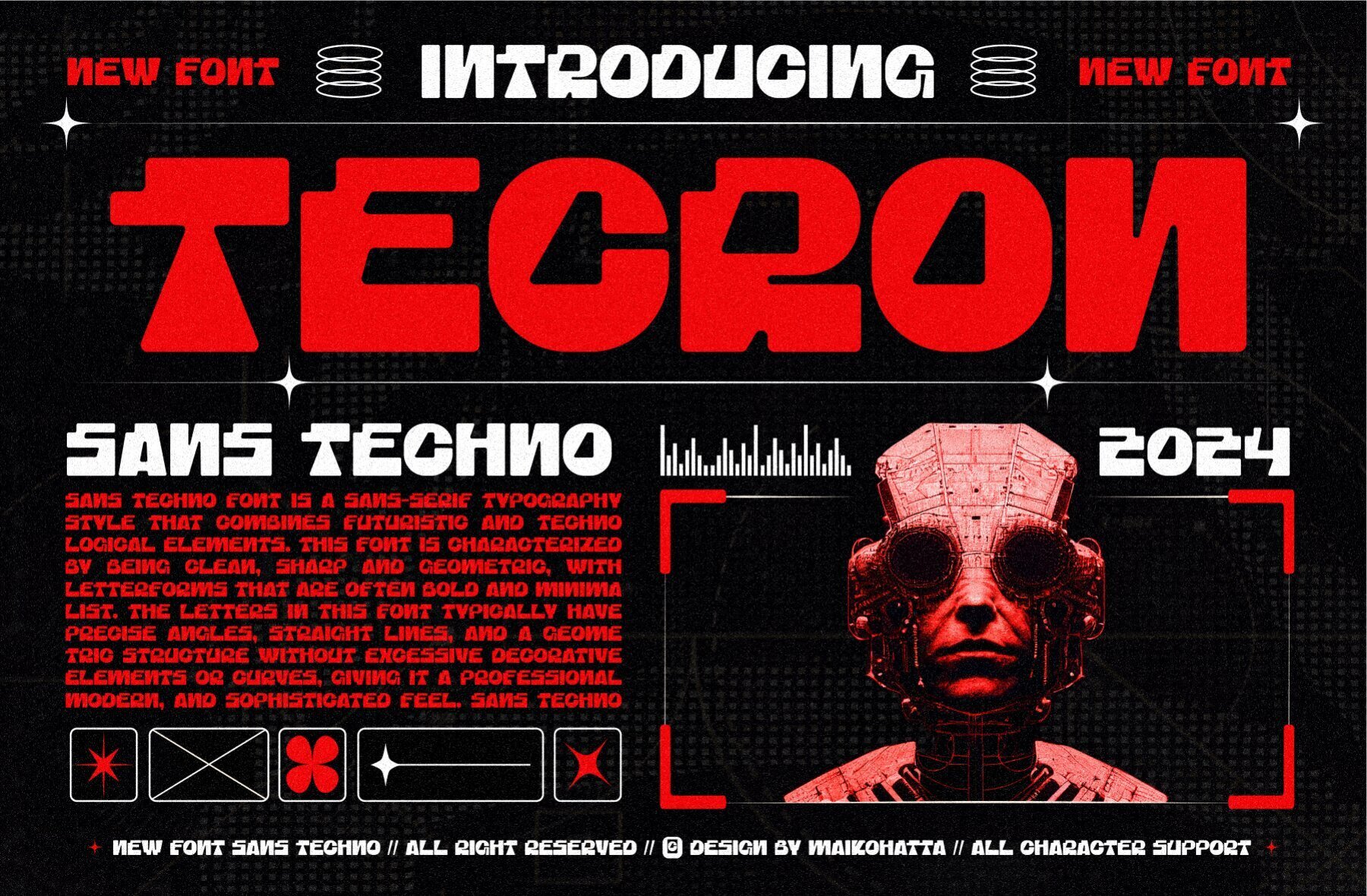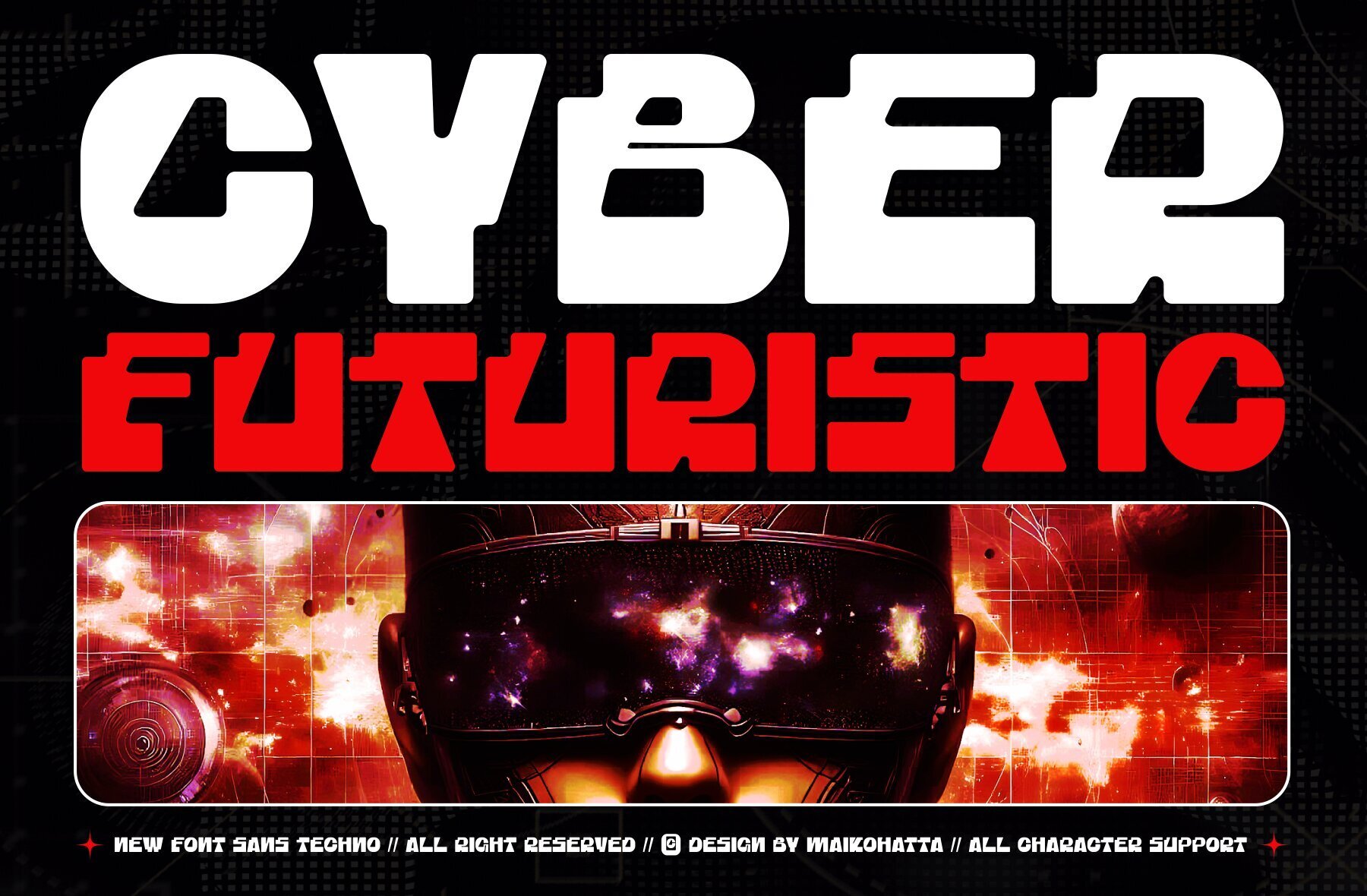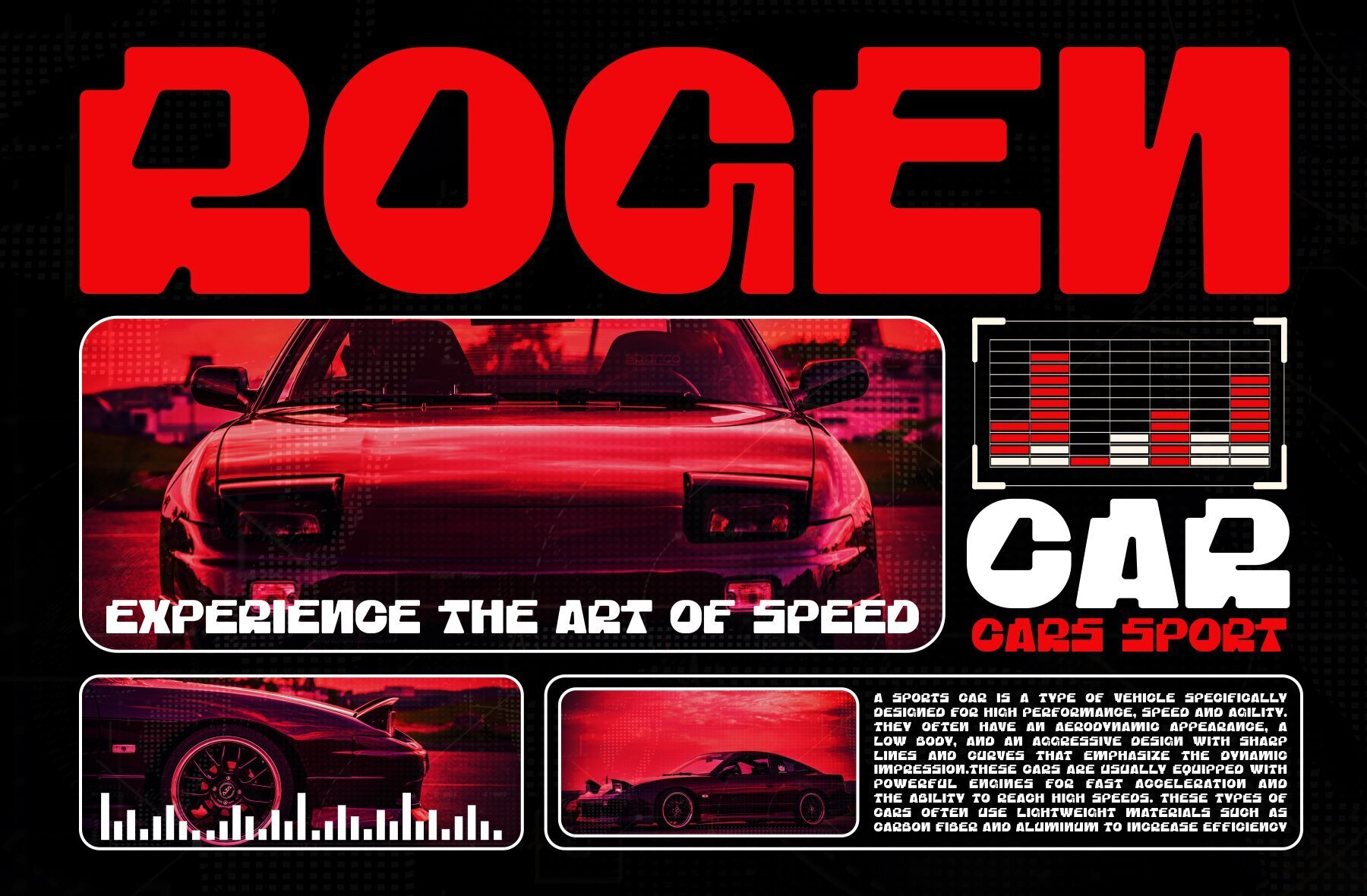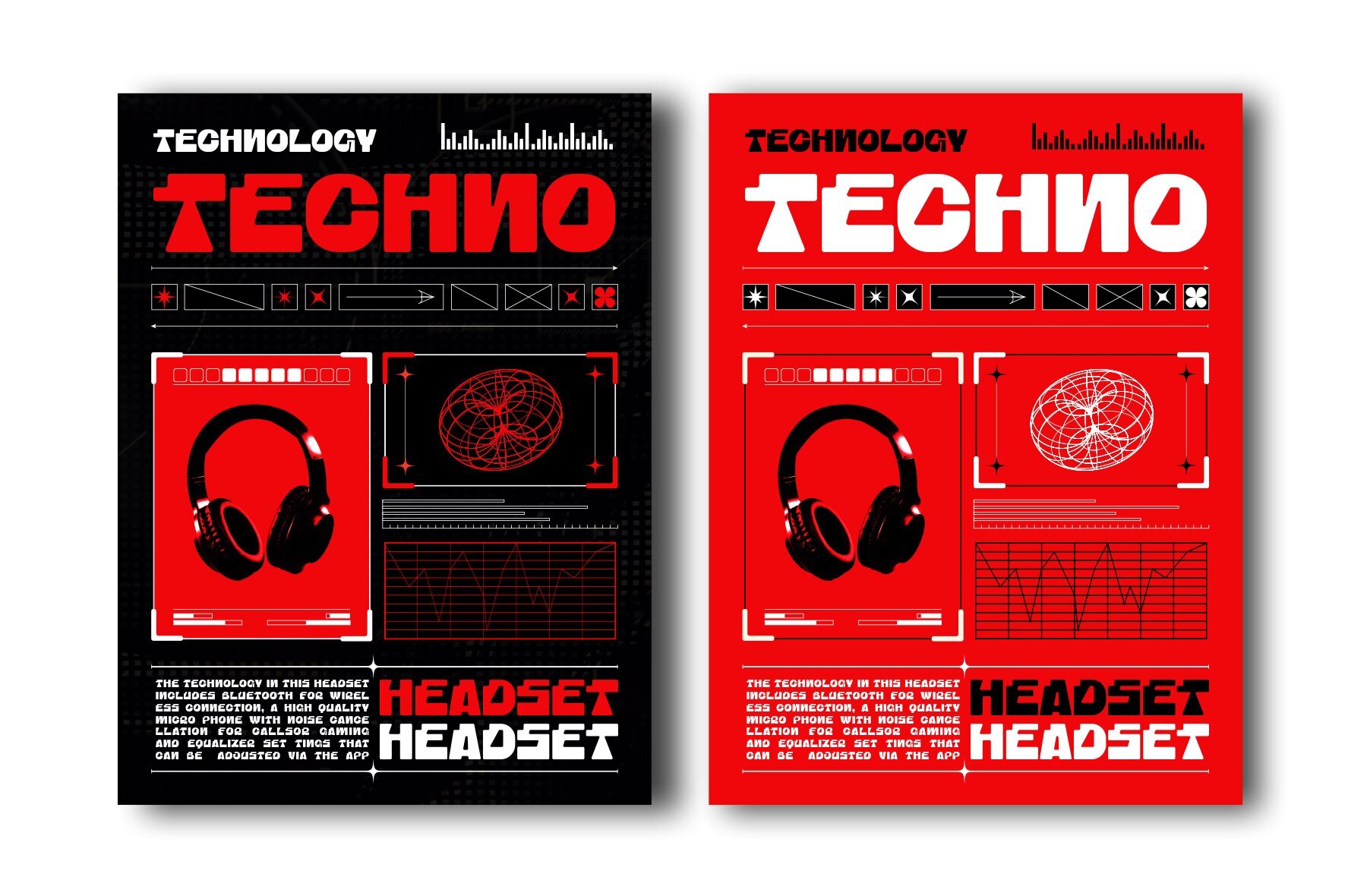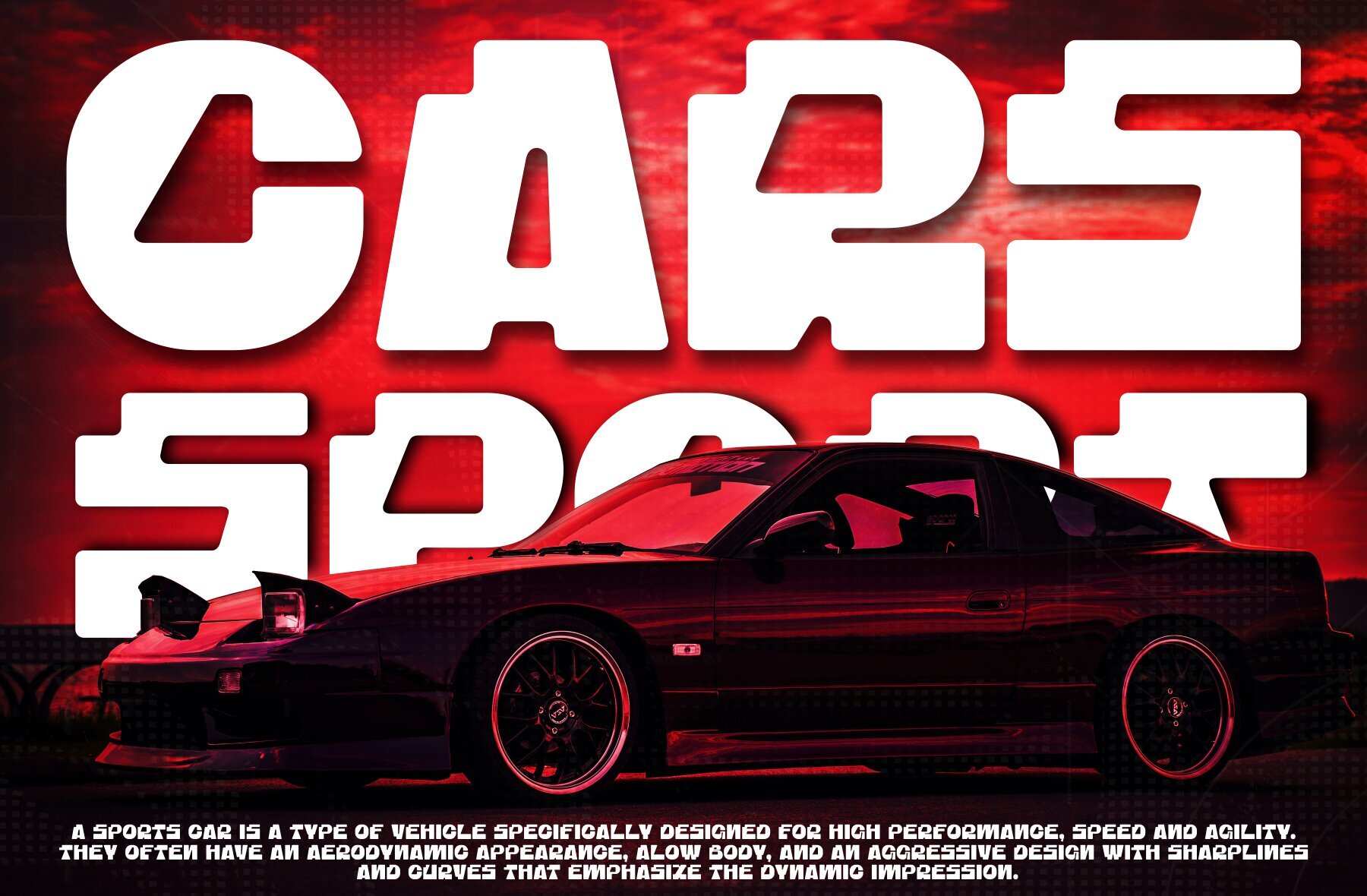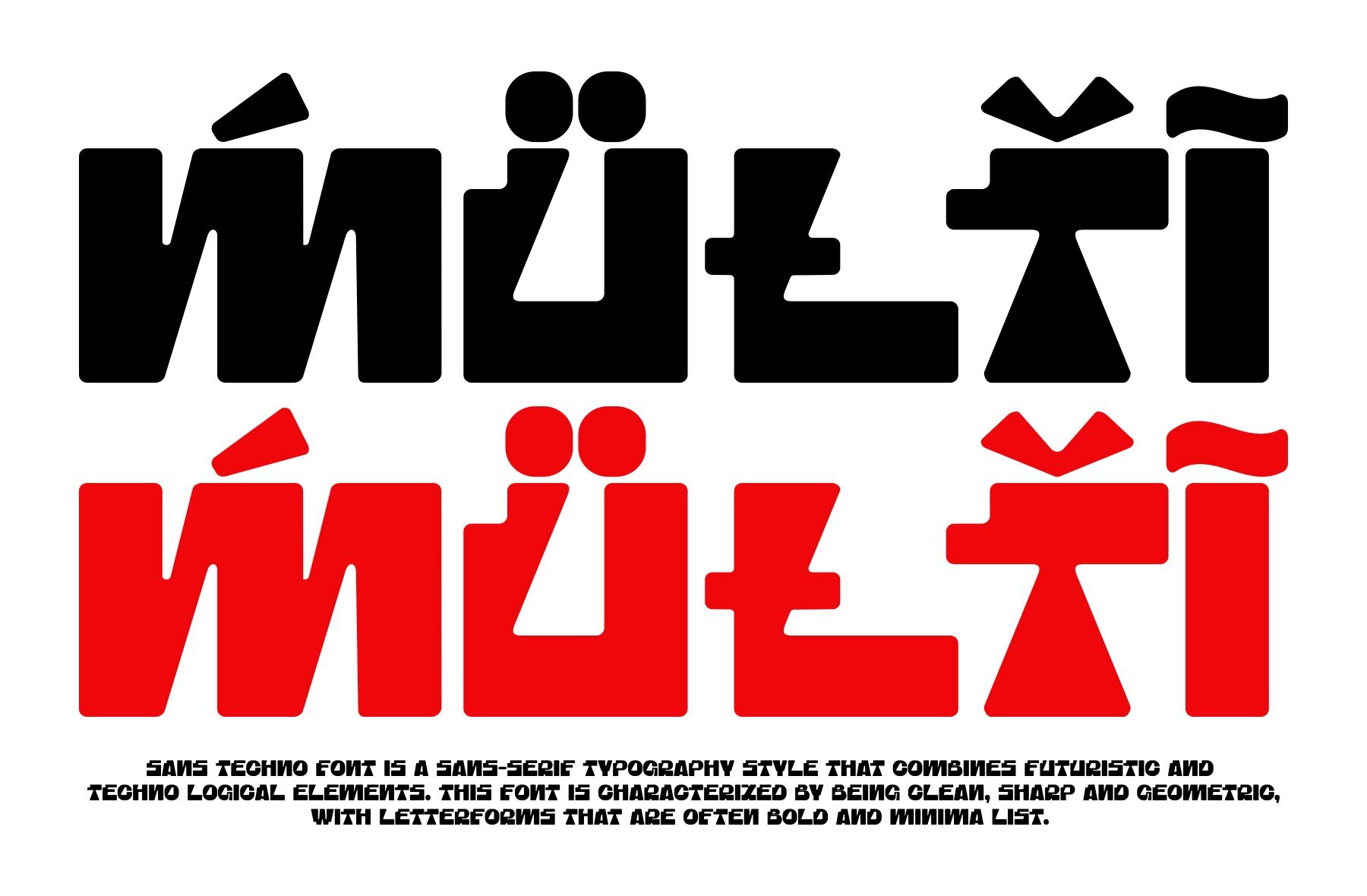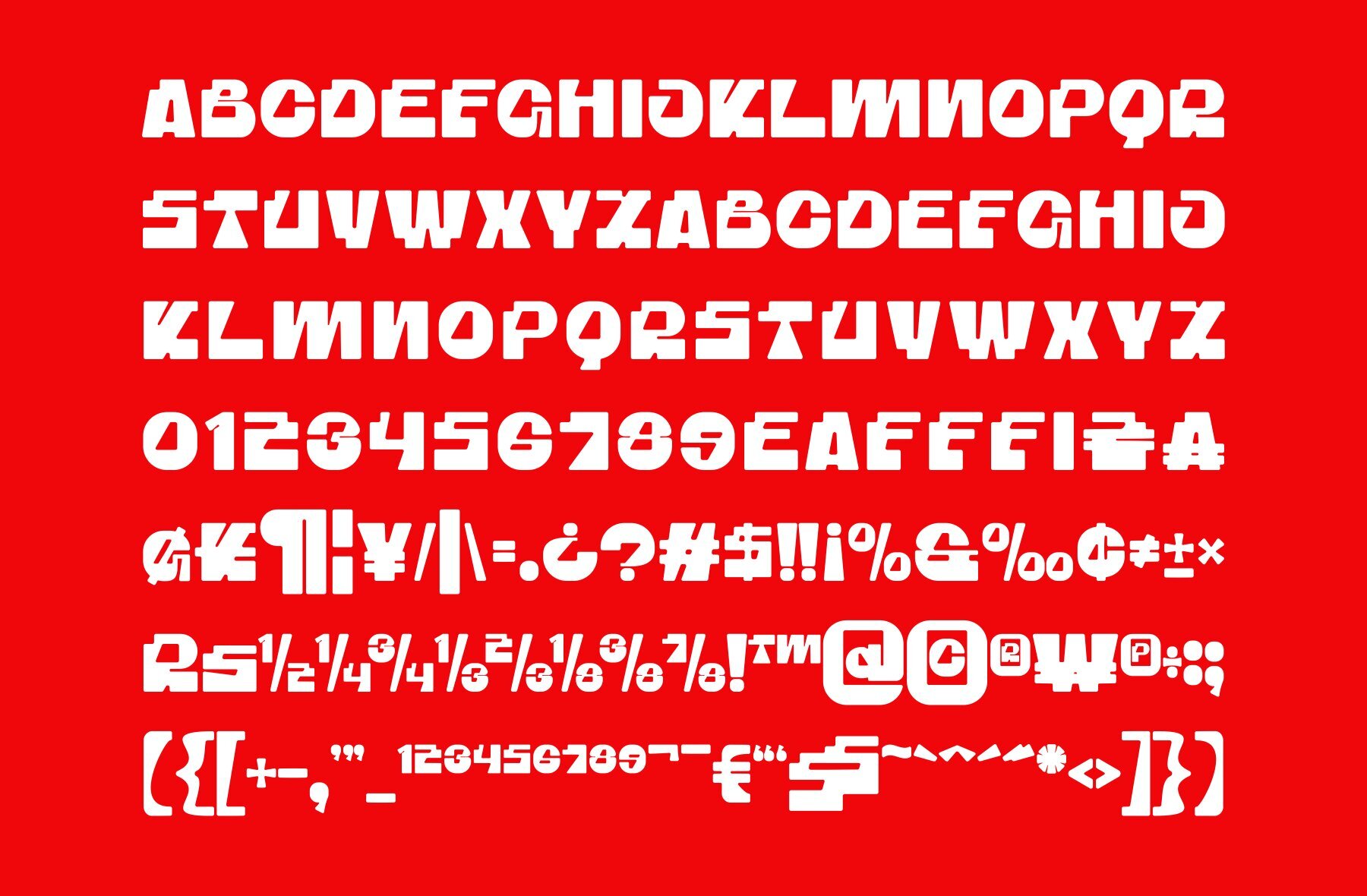
Tecron Font
TECRON
Tecron is a sans-serif techno font that embodies a futuristic design inspired by advanced technology. Perfect for the digital era, its modern and innovative style brings a vibrant energy to any creative project. With its sharp lines and geometric letter shapes, Tecron is ideal for designs related to technology, robotics, science, and contemporary lifestyles.
This versatile font shines in logos, website designs, posters, and any creative endeavor needing a futuristic touch. Tecron includes both uppercase and lowercase characters and supports multilingual use, making it suitable for a wide range of applications in various languages.